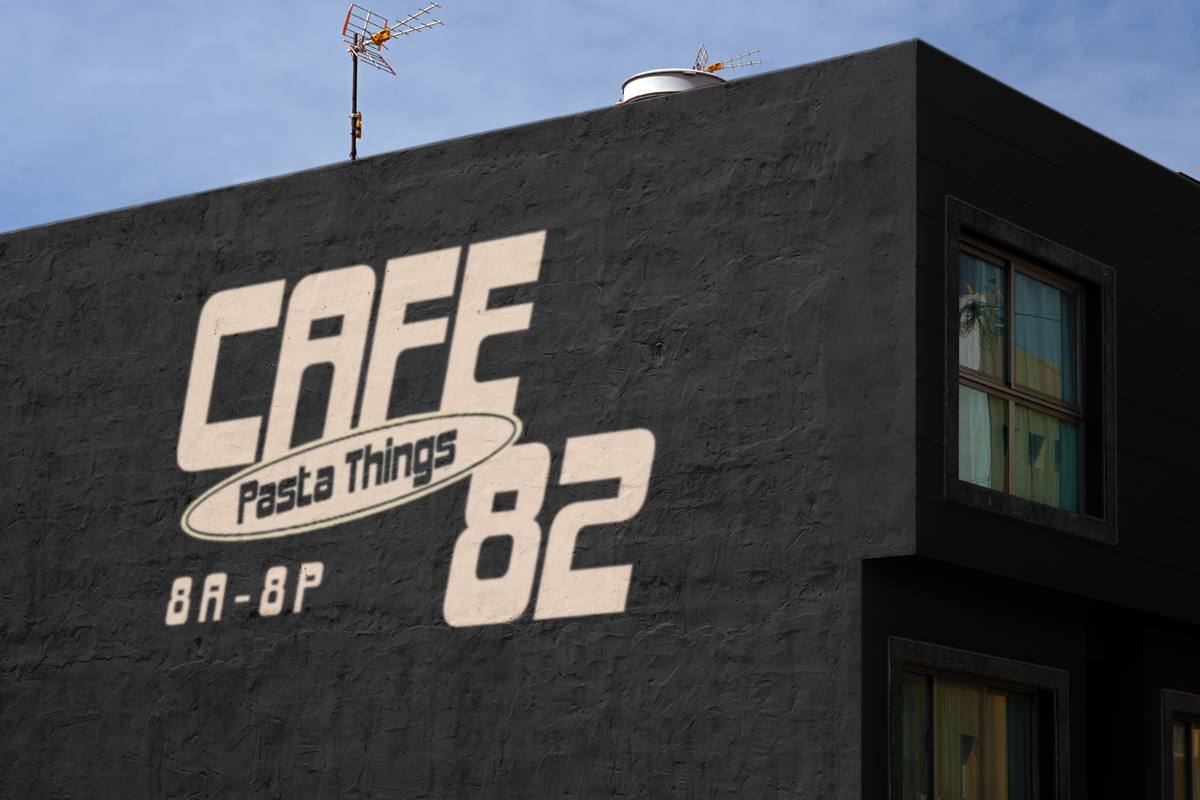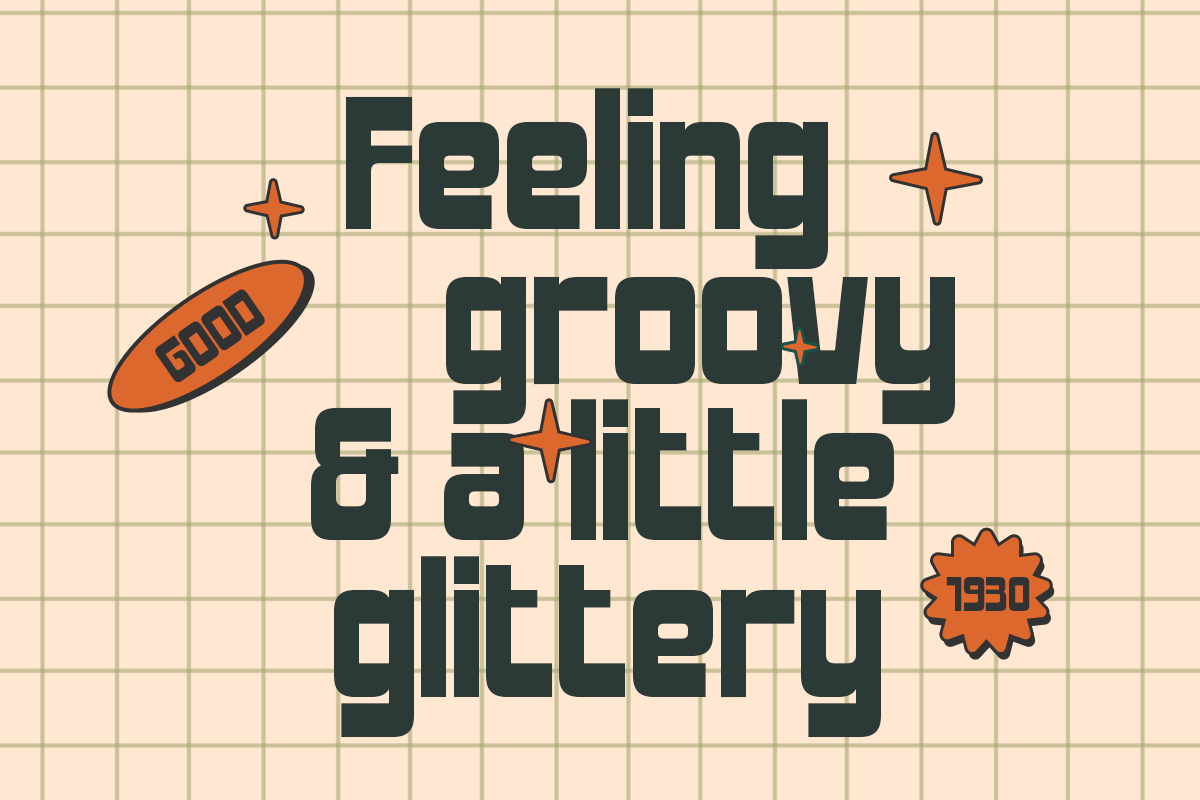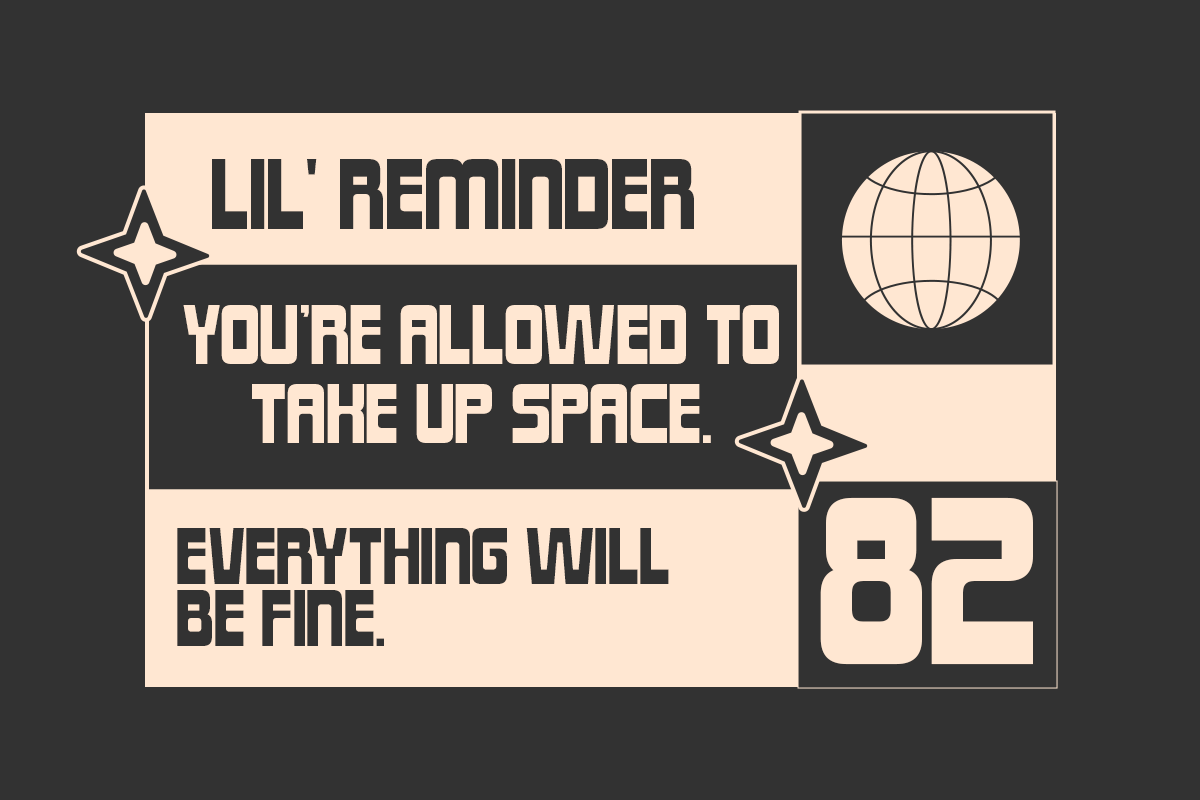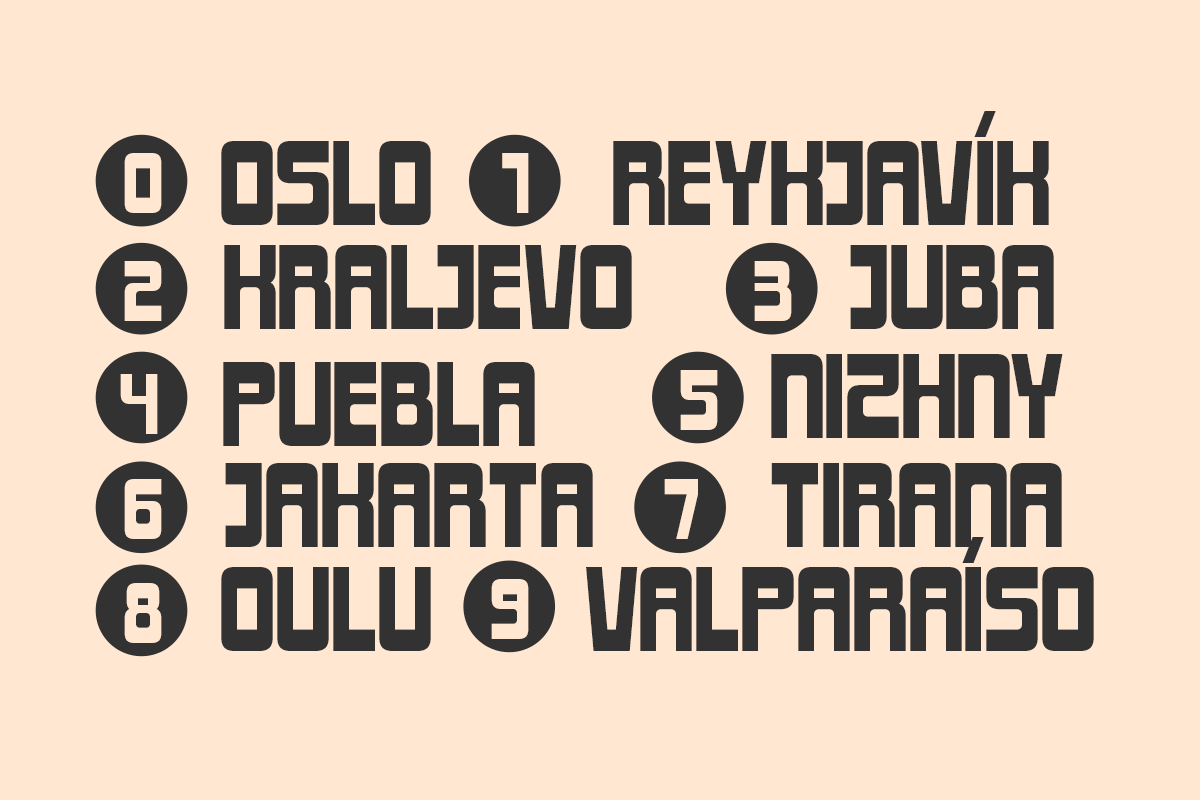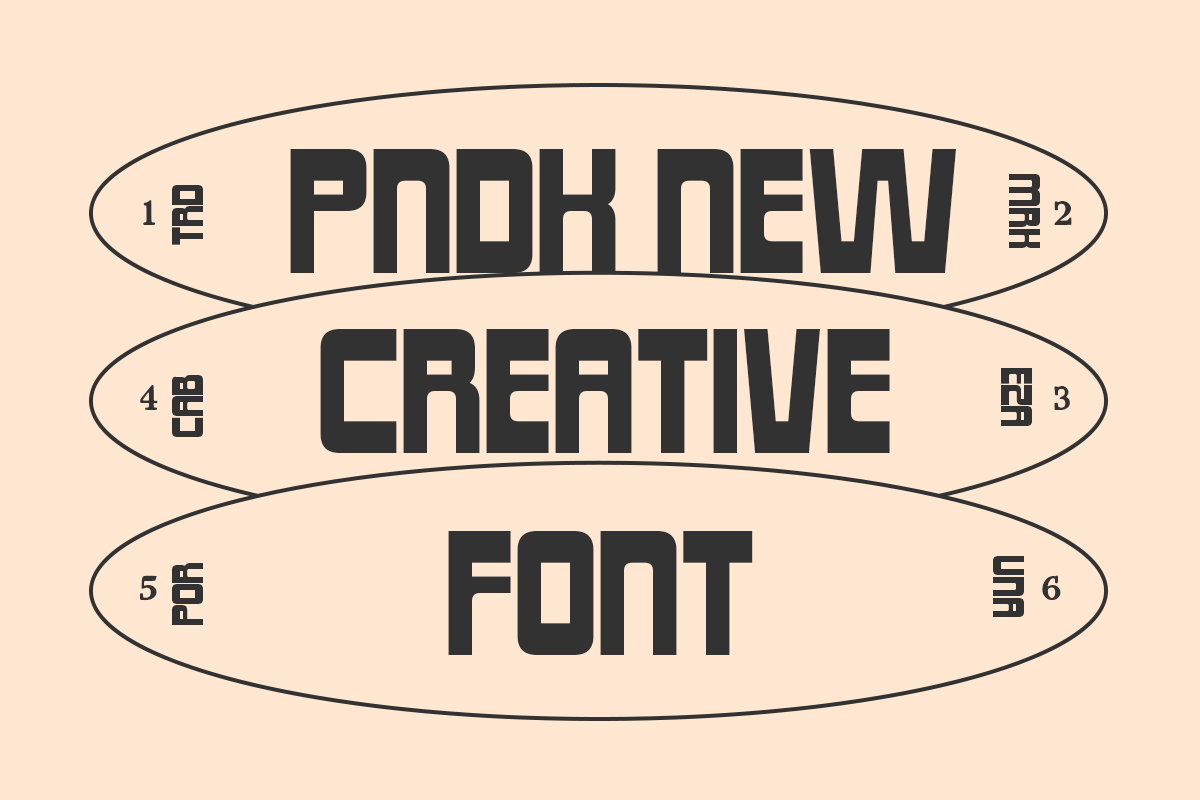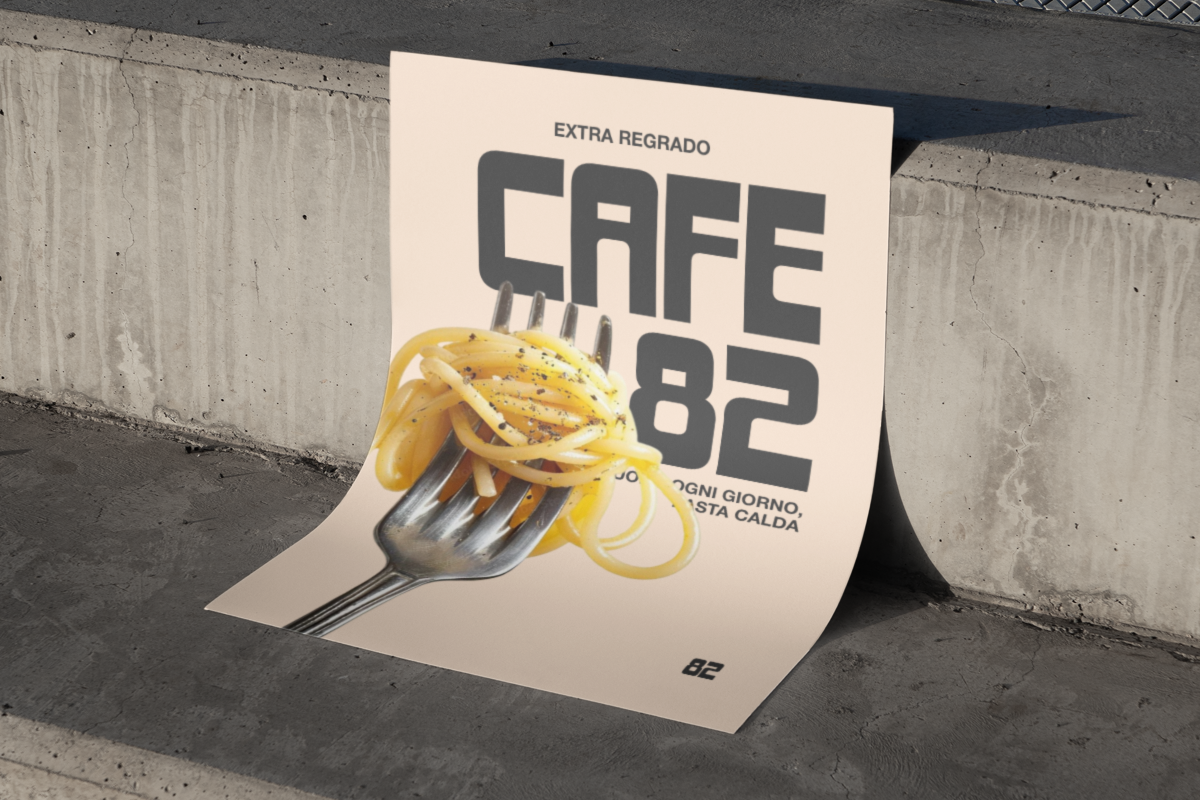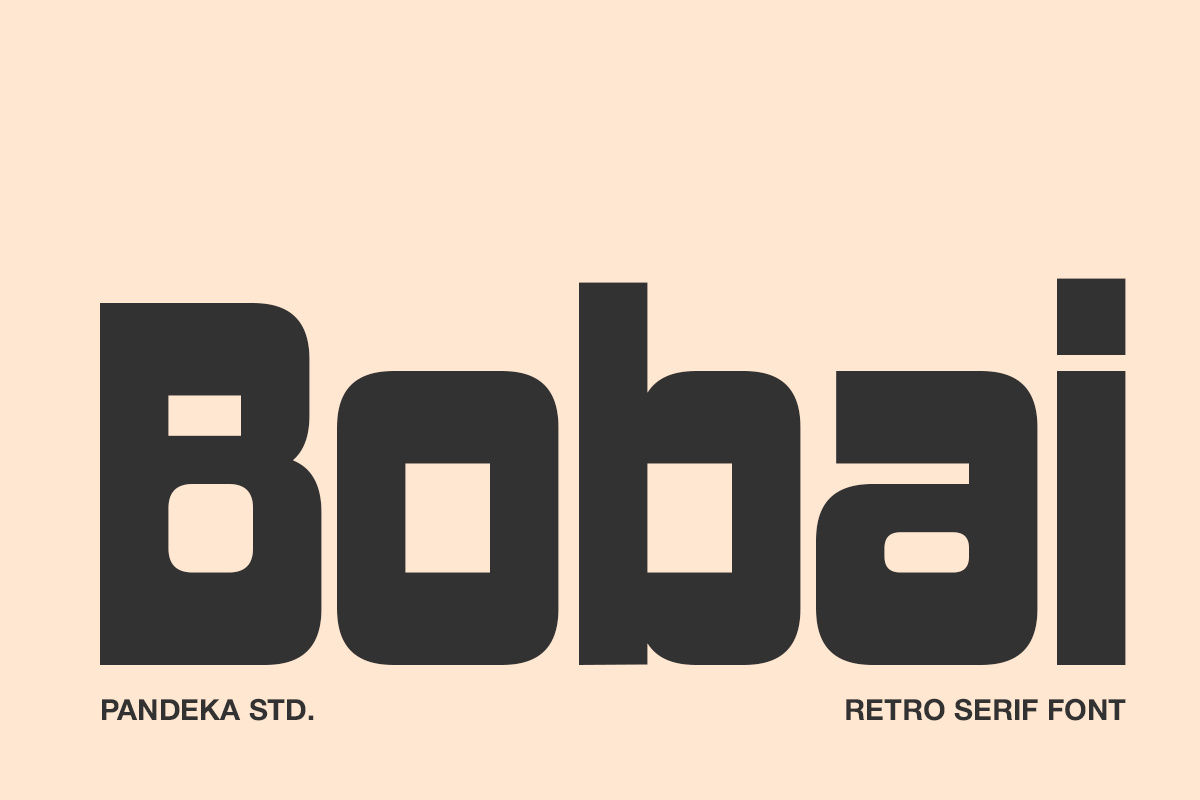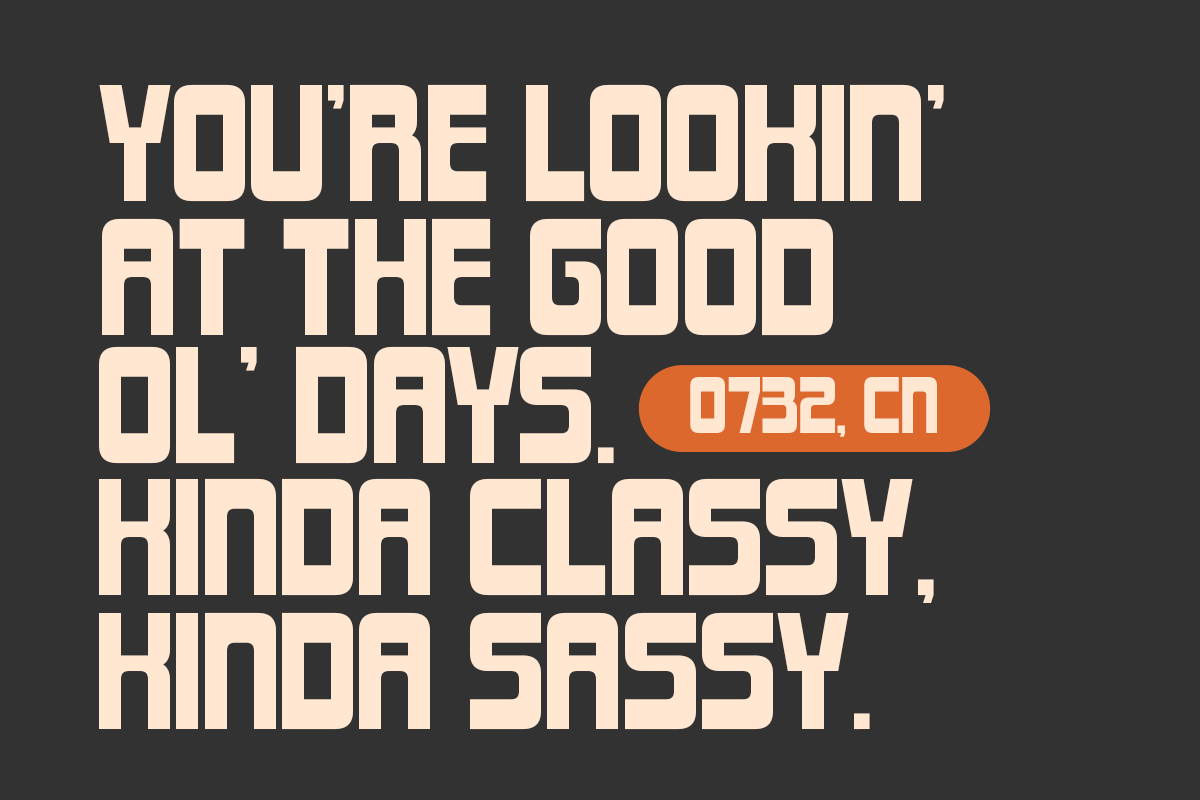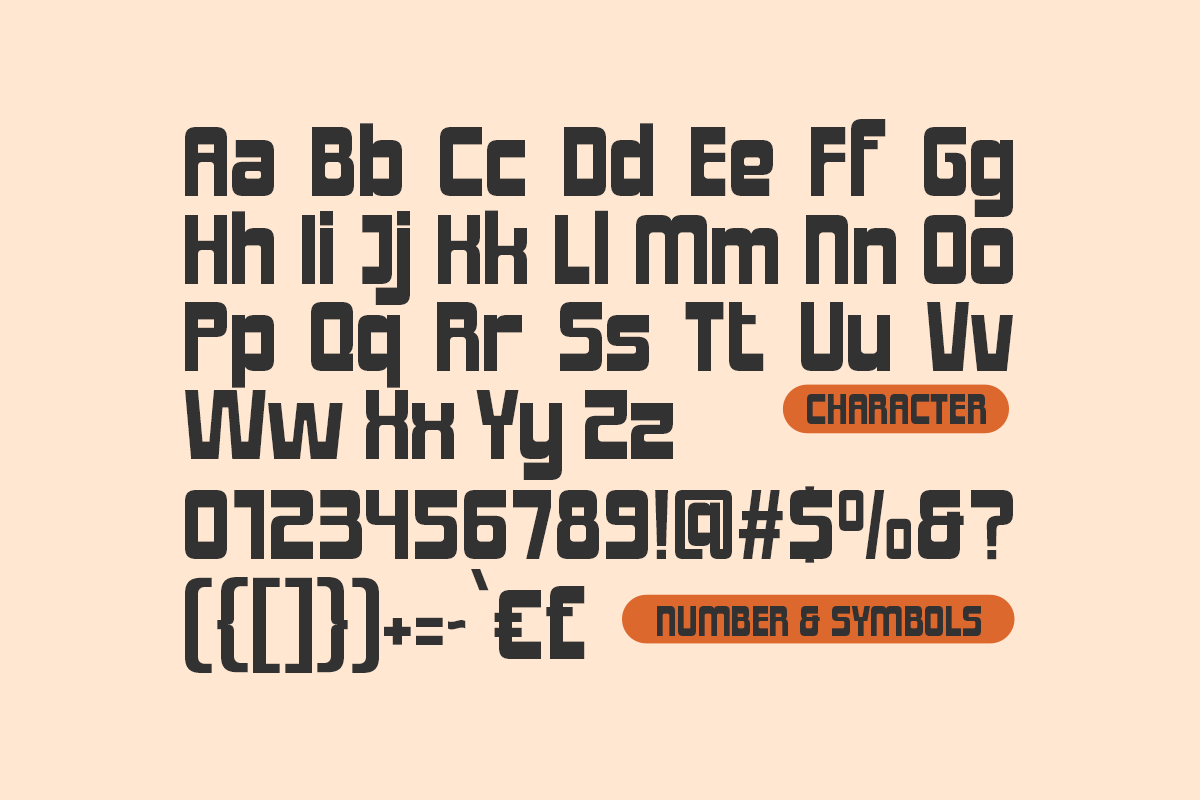
Bobai - Retro Sans Serif Font
Bobai is a bold retro sans serif font designed to bring a strong, playful, and nostalgic character to modern designs. Featuring chunky geometric letterforms, compact proportions, and distinctive rounded details, it creates an eye-catching visual style that works especially well for retro branding, posters, headlines, logos, and creative editorial designs.
Available in 2 styles: Regular & Oblique, Bobai is suitable for logo design, retro branding, posters, headlines, signage, packaging, editorial layouts, social media graphics, advertising, labels, apparel graphics, and display typography. Its bold structure and vintage-inspired character add a confident, energetic touch to both print and digital projects.
2 Style: Regular and Oblique
Full Character Set: Uppercase, lowercase, numbers, symbols, and punctuation